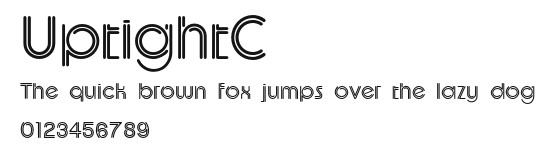
About UptightC.otf
UptightC.otf is a modern, elegant sans-serif font designed for ultimate readability and visual harmony. Perfect for branding, headlines, web design, and print materials.